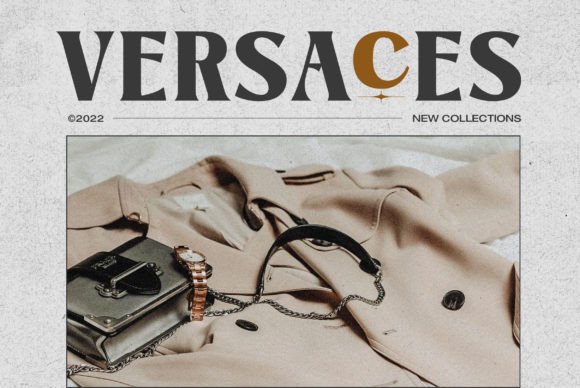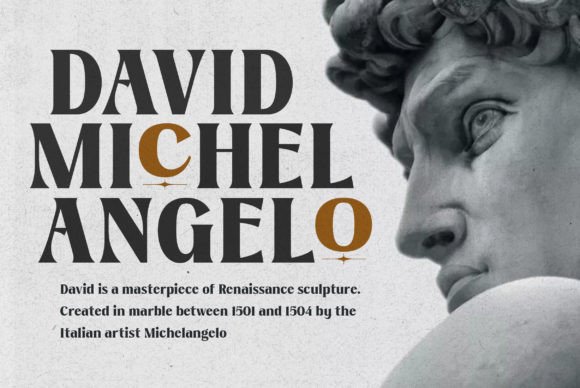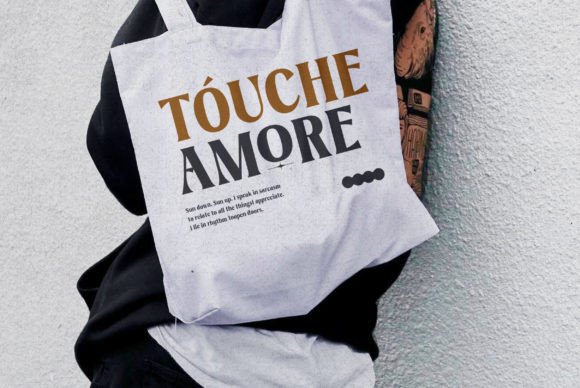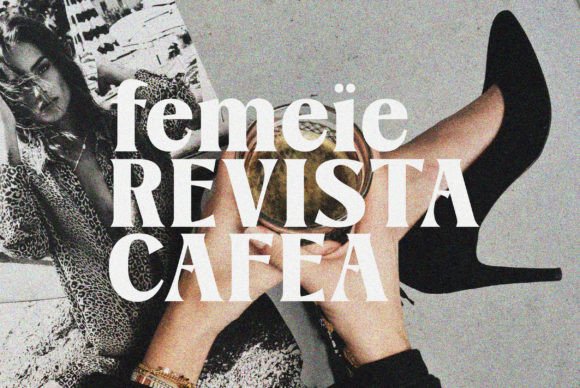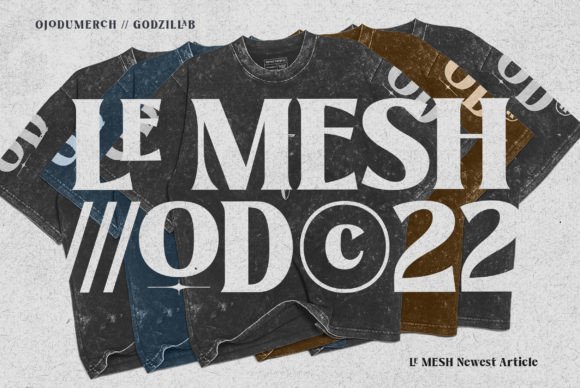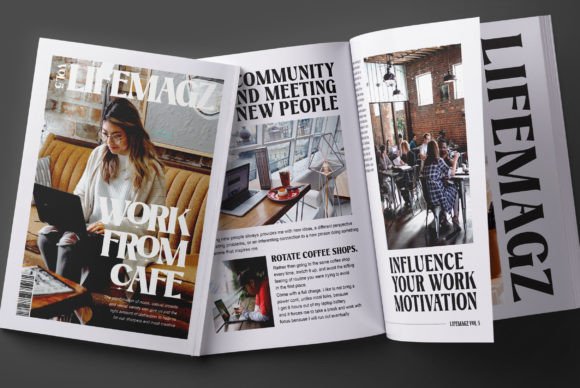
The Ultimate Guide to Chromes Font: Elevate Your Designs with a Vintage Serif Classic
I’ll never forget the design project that led me to discover Chromes Font. I was working on a branding project for a music festival, and I needed a font that would capture the essence of the High Octane Rock, Post Hardcore, Emo genre. I scoured the internet, tried countless fonts, but nothing seemed to fit the bill. That was until I stumbled upon Chromes Font – a stunning vintage serif font that instantly resonated with the festival’s energetic and rebellious vibe.
An Honest Review of Chromes Font
What I Love About Chromes Font
- ✨ Strong and sharp serifs that add a touch of sophistication to any design
- ✅ Modern touches that give it a fresh and contemporary feel
- 👍 Highly versatile and perfect for title/headline, logo/logotype, packaging/label designs, and more
- 💻 Excellent for digital and print designs, with clear legibility at various sizes
While Chromes Font is an excellent choice for many design projects, there are a few things to keep in mind:
- 🤔 Some users may find the font’s vintage feel too ornate or overpowering for certain designs
- ⚠️ Limited availability of certain OpenType features and glyphs, which may limit its use in specific contexts
The Designer Inspiration Behind Chromes Font
Chromes Font was inspired by the modern-classic typography of the High Octane Rock, Post Hardcore, Emo genre. The font’s designer, a self-proclaimed music enthusiast, sought to create a font that would capture the energy and rebellious spirit of this music scene. The result is a font that’s both vintage and modern, with a unique character that sets it apart from other serif fonts.
| Font Name | Chromes Font |
| Author | Godzillab |
| What is Chromes Font best used for? | Chromes Font is perfect for title/headline, logo/logotype, packaging/label designs, and more. |
| Is Chromes Font suitable for body text? | While Chromes Font is primarily designed for headlines and titles, it can be used for body text in certain contexts. However, its vintage feel and ornate serifs may make it less suitable for long-form text. |
| Is Chromes Font available in multiple weights? | Chromes Font is available in a range of weights, making it versatile for various design applications. |